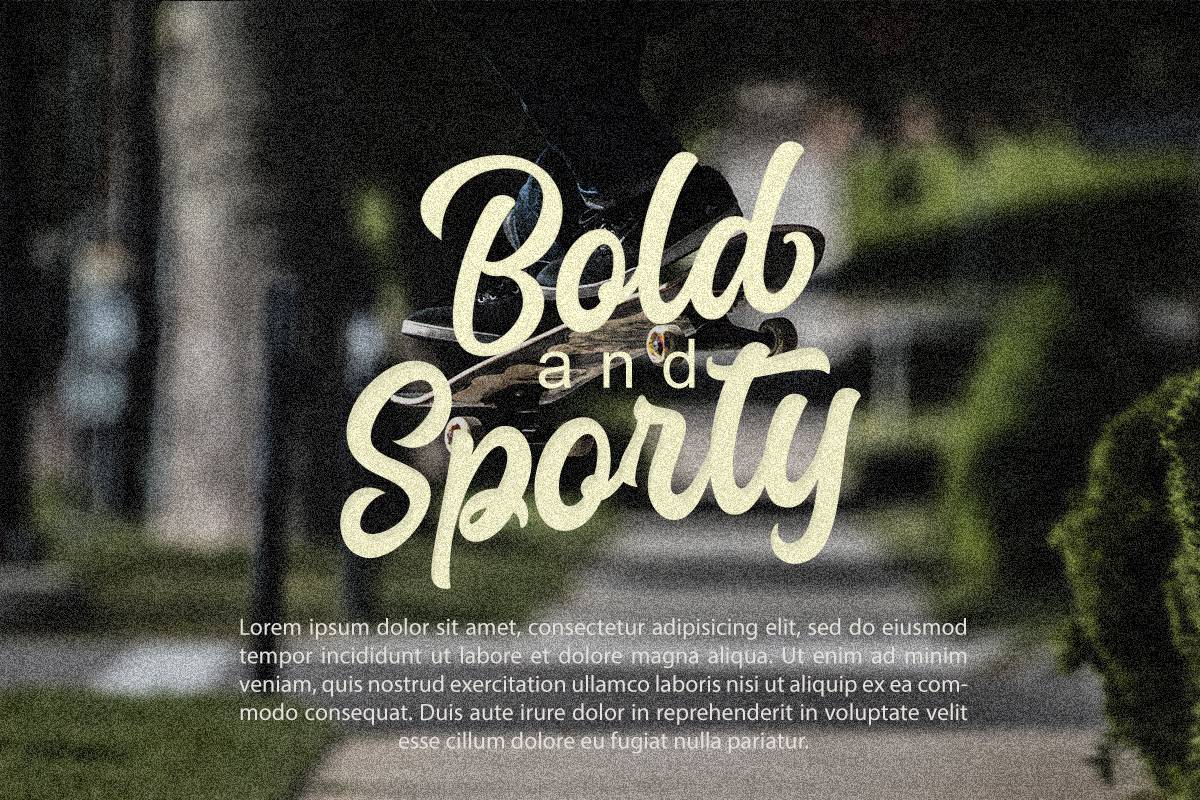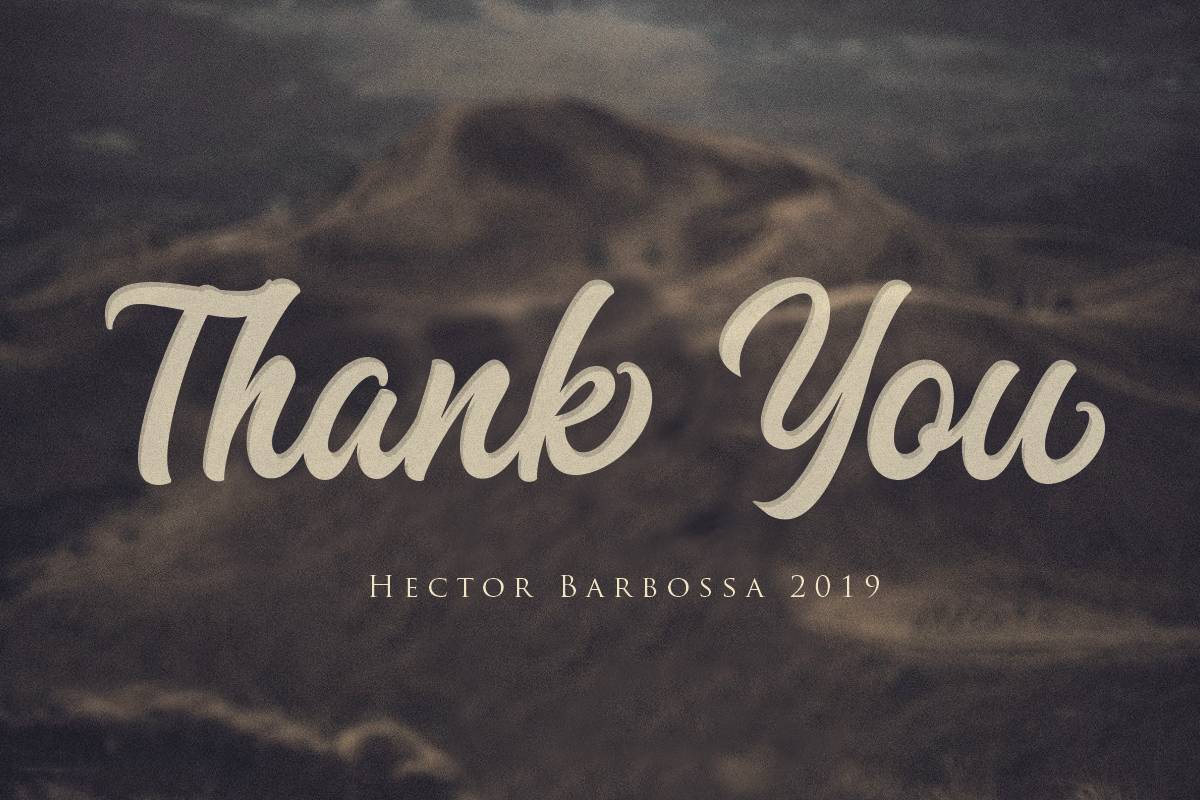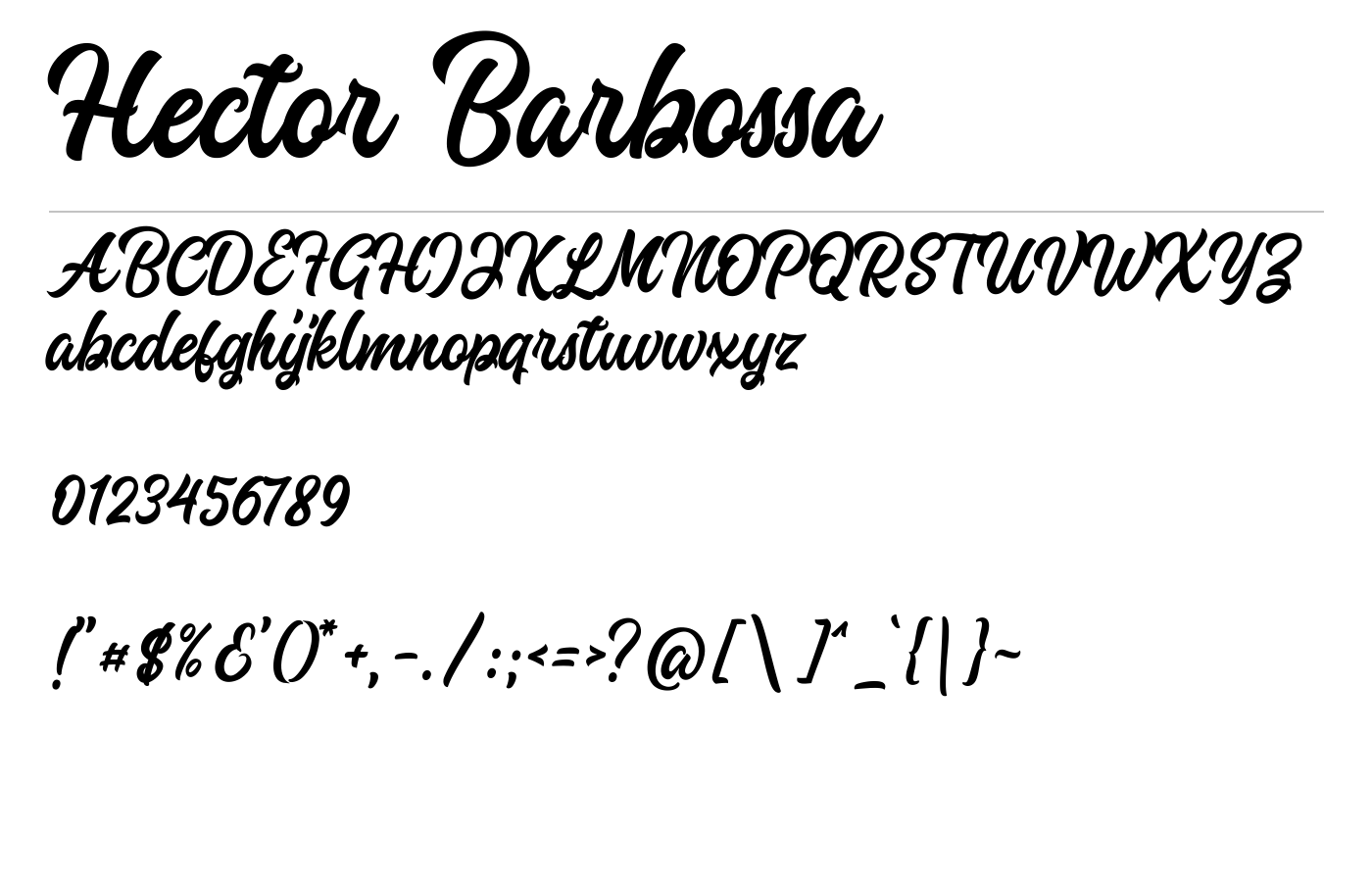
Hector Barbossa is a bold, cursive script font with a lively and elegant feel, featuring smooth, flowing strokes that create a sense of warmth and personality. Its high contrast and moderately condensed letterforms make it ideal for eye-catching headlines, branding, packaging, or invitations where a stylish yet approachable touch is desired. This font works best for creative projects that want to combine a classic handwritten charm with modern readability.
Hector Barbossa Font
About Hector Barbossa Font